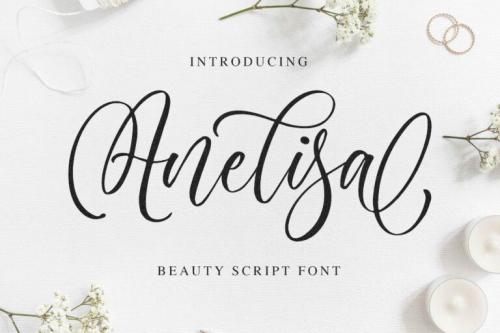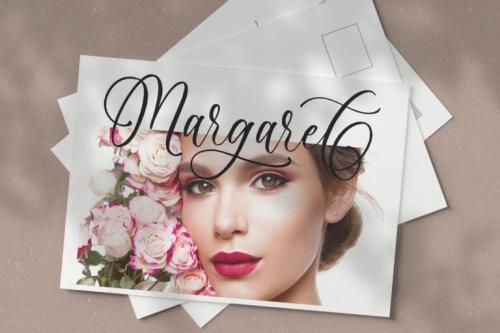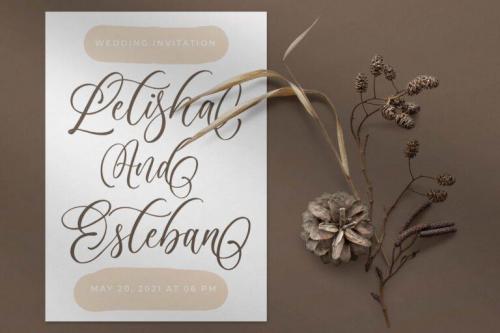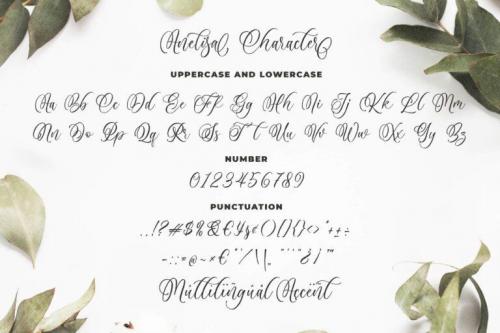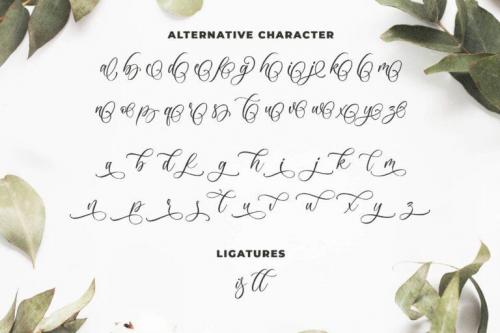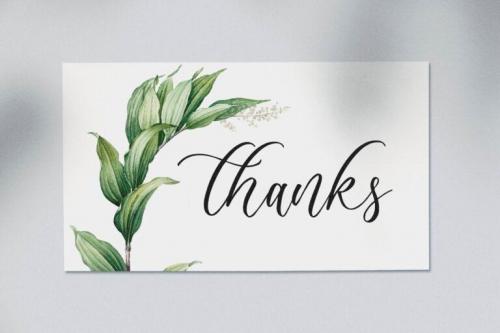
Introducing of our new product the name is Anelisa Beauty Script Font. Anelisa inspired by modern script style this font is a fun theme very good for display, tshirt design, craft, quote sign, logotype and etc
- Designer: Blankids